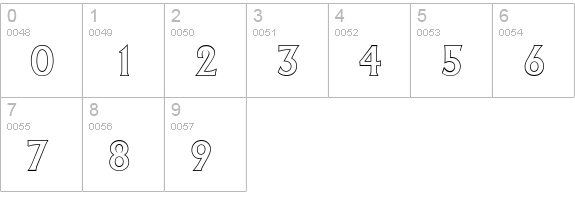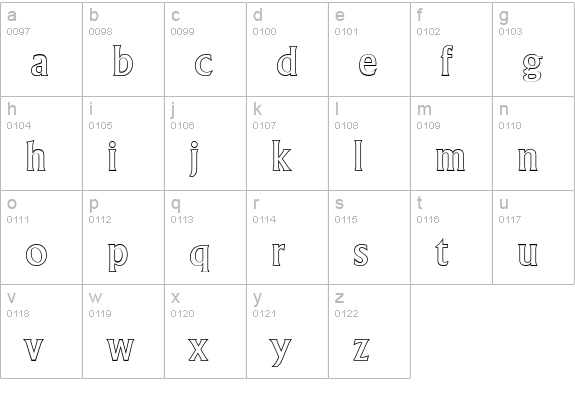
AdelonOutline-Medium-Regular is a balanced, medium-weight variant in the AdelonOutline typeface family \xE2\x80\x94 well suited to sub-headlines, navigation, and balanced editorial work.
AdelonOutline-Medium-Regular font is a sleek and modern typeface that perfectly balances elegance with readability. With its clean lines and distinct outlines, this font is versatile and suitable for a wide range of design projects. Whether you are creating a logo, poster, website, or any other design piece, AdelonOutline-Medium-Regular font will add a touch of sophistication and style. Its medium weight strikes the perfect balance between boldness and subtlety, making it ideal for both headers and body text. The best part? AdelonOutline-Medium-Regular font is available for free download at FontsMarket.com. Simply visit the website to access this exceptional font and elevate your designs to the next level. Don't miss out on this opportunity to enhance your projects with the timeless appeal of AdelonOutline-Medium-Regular font.